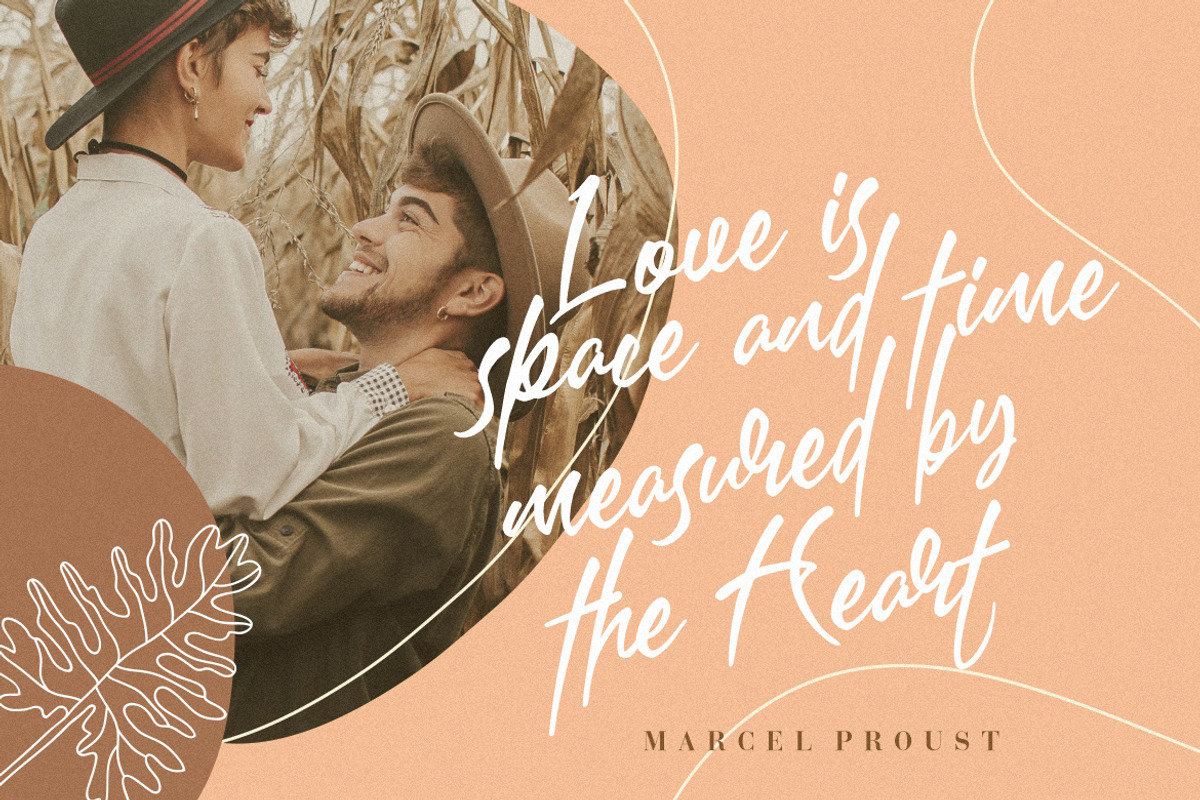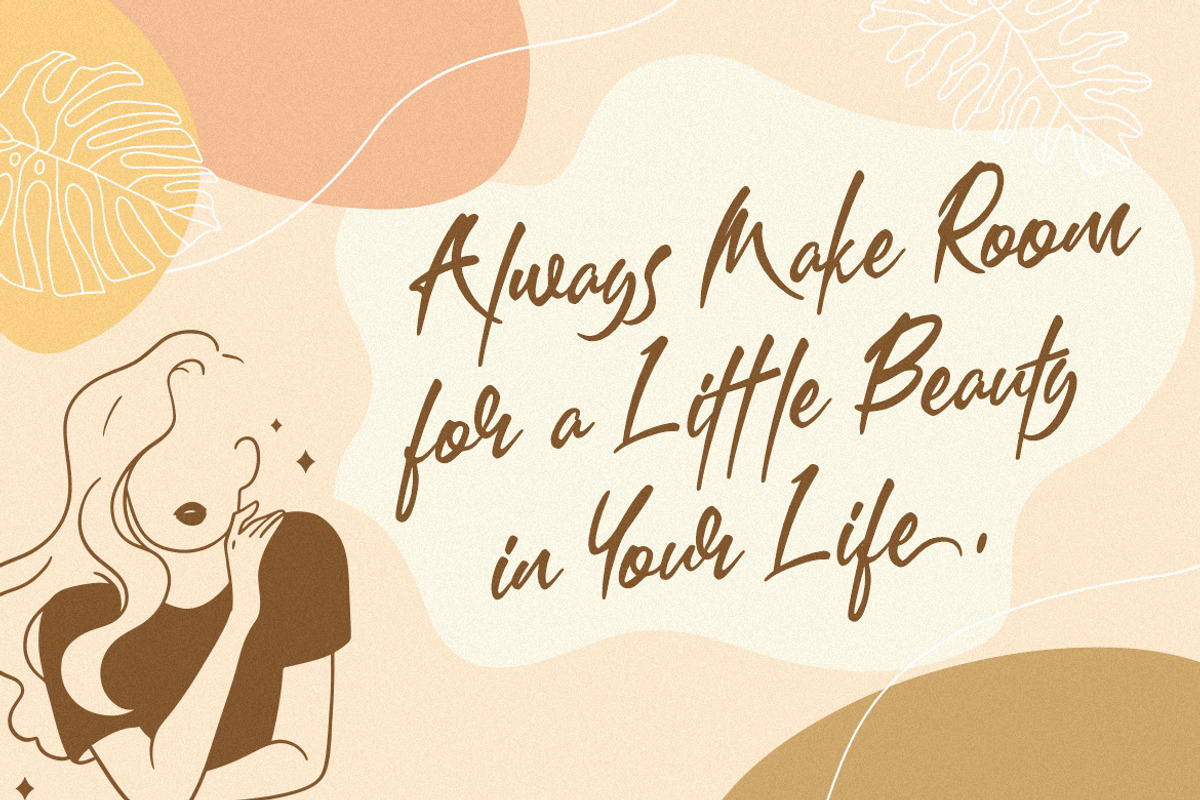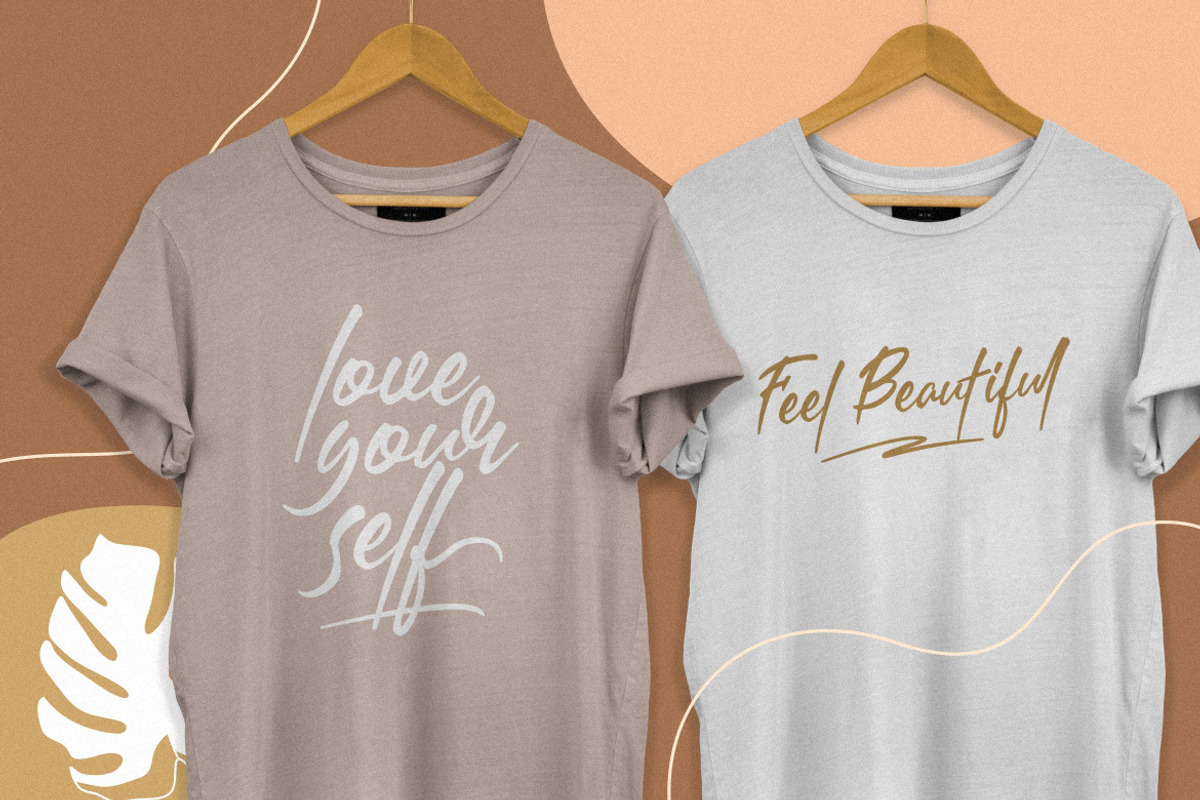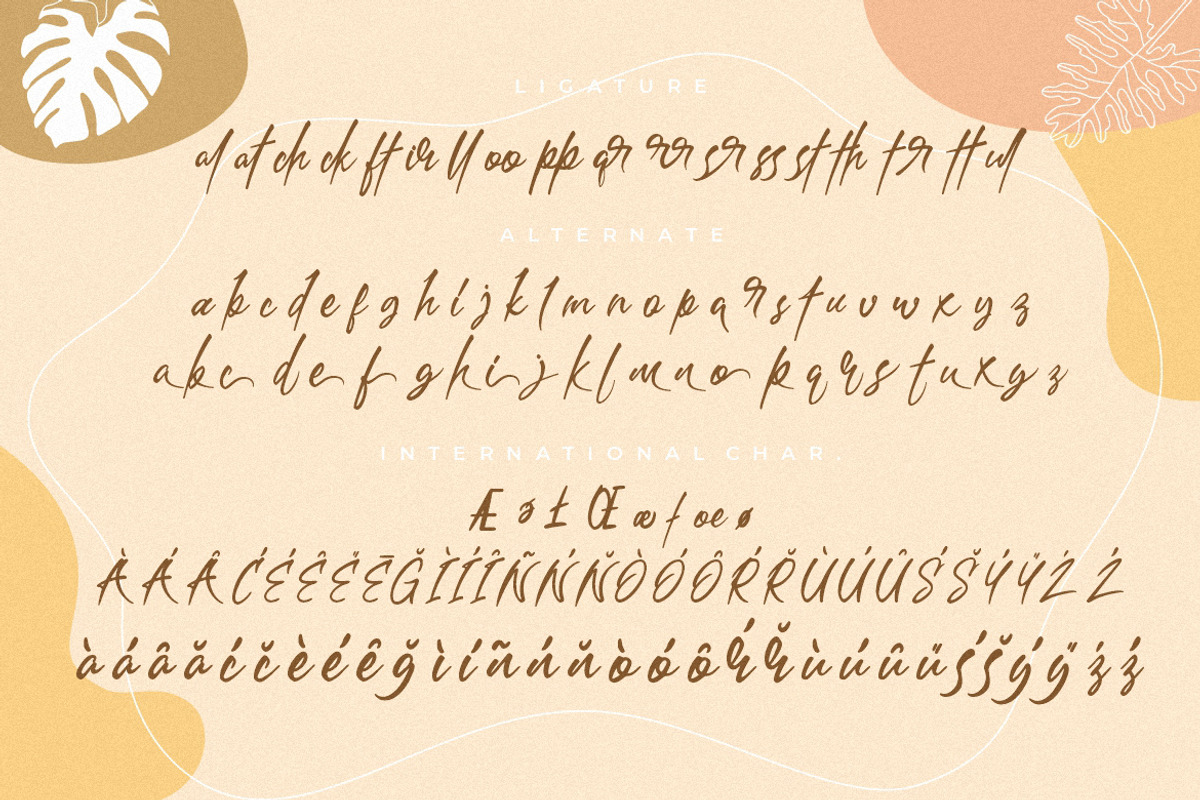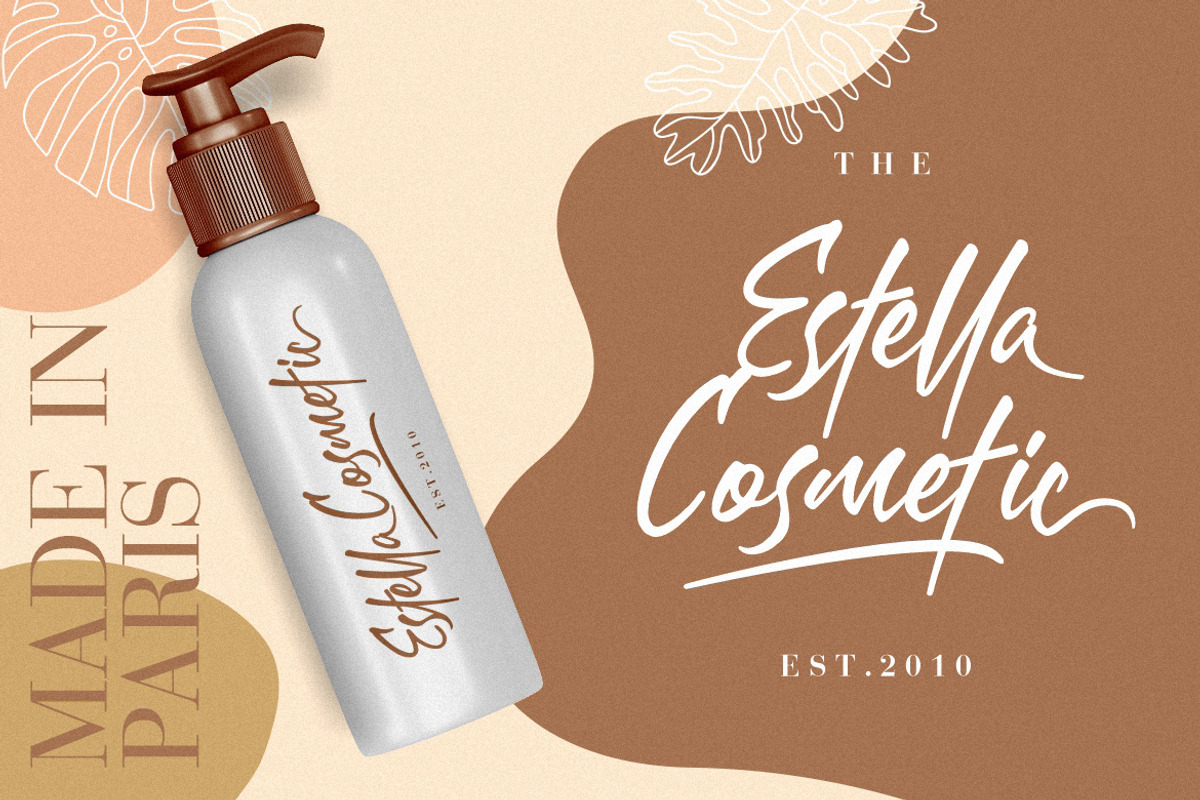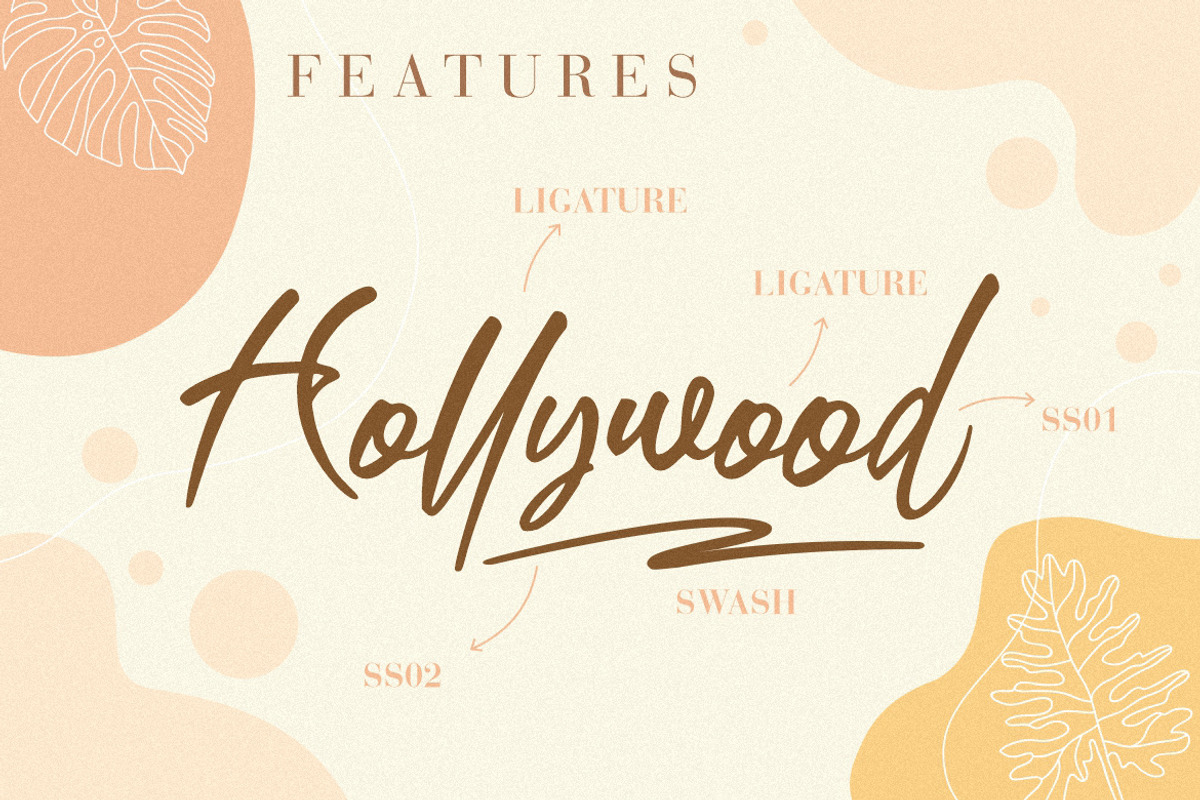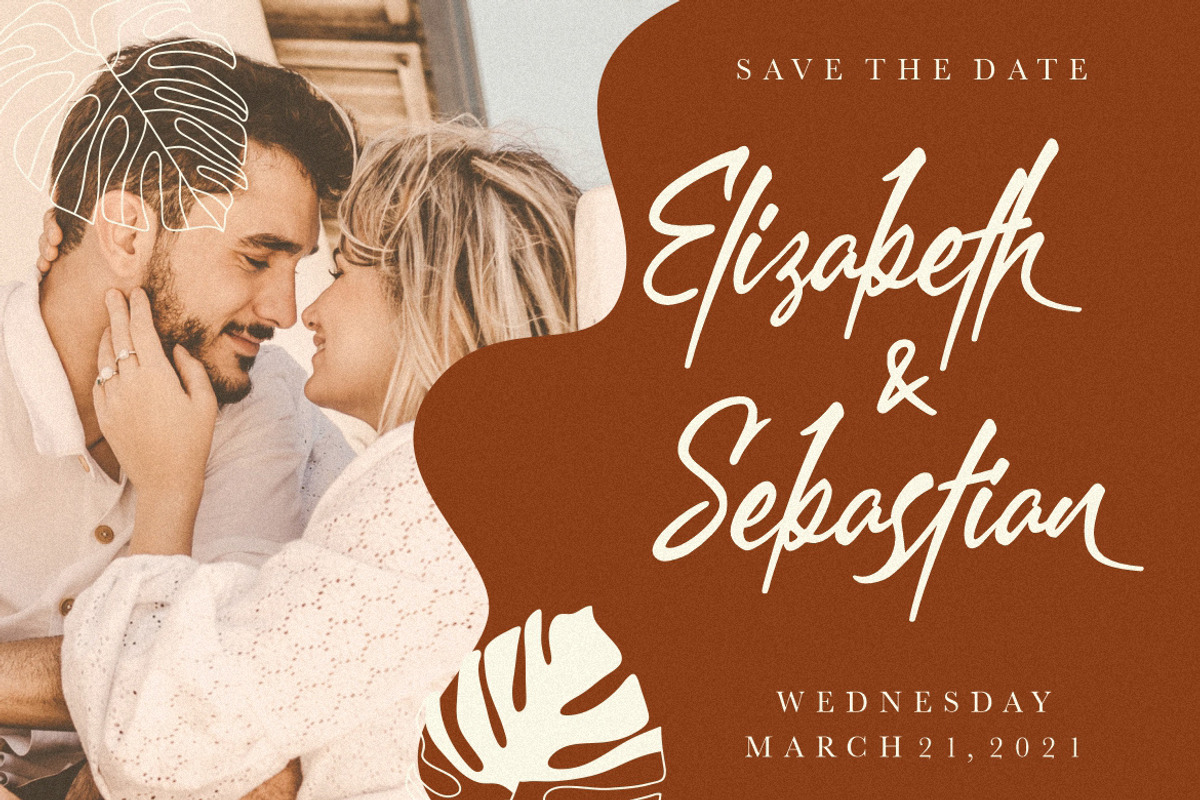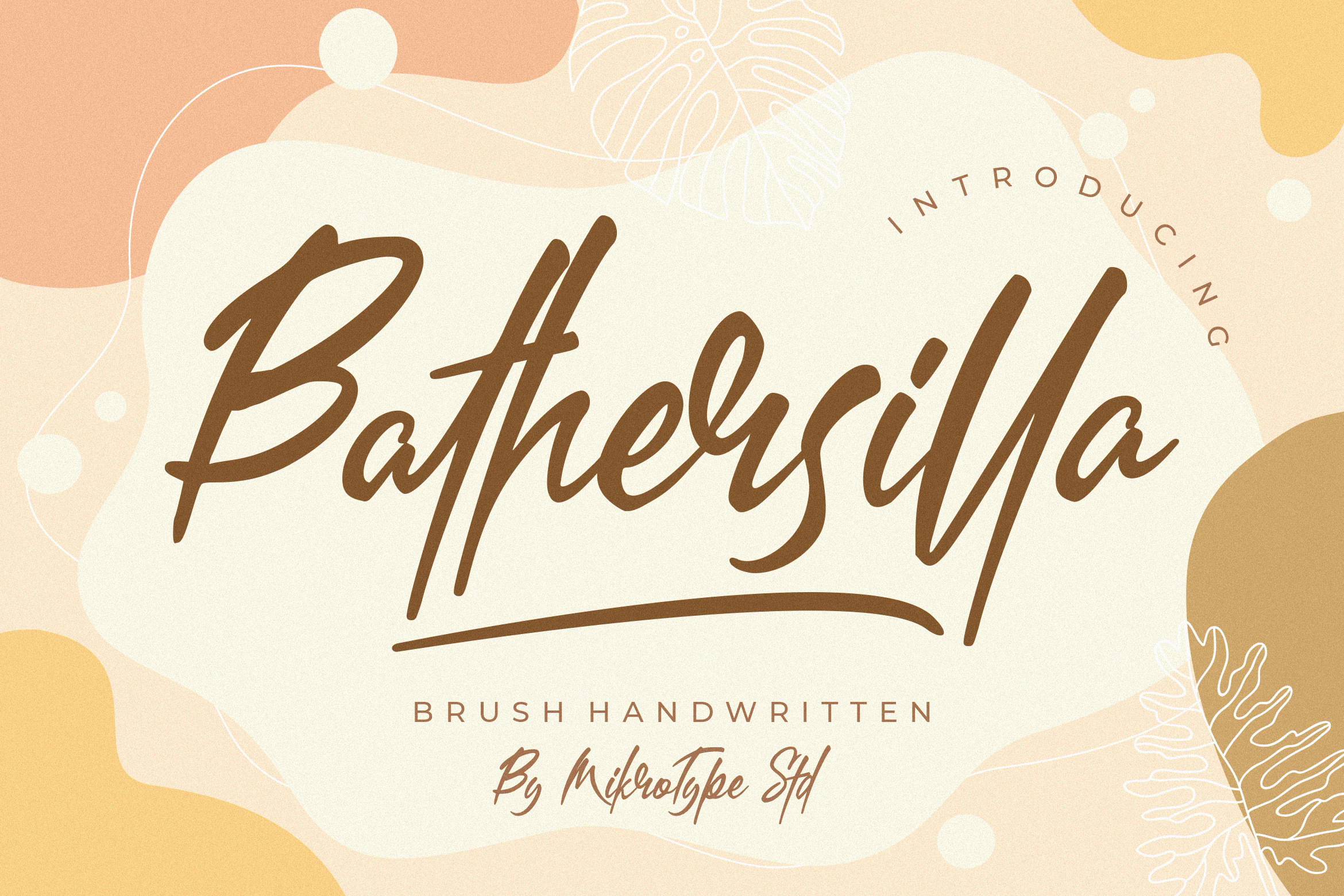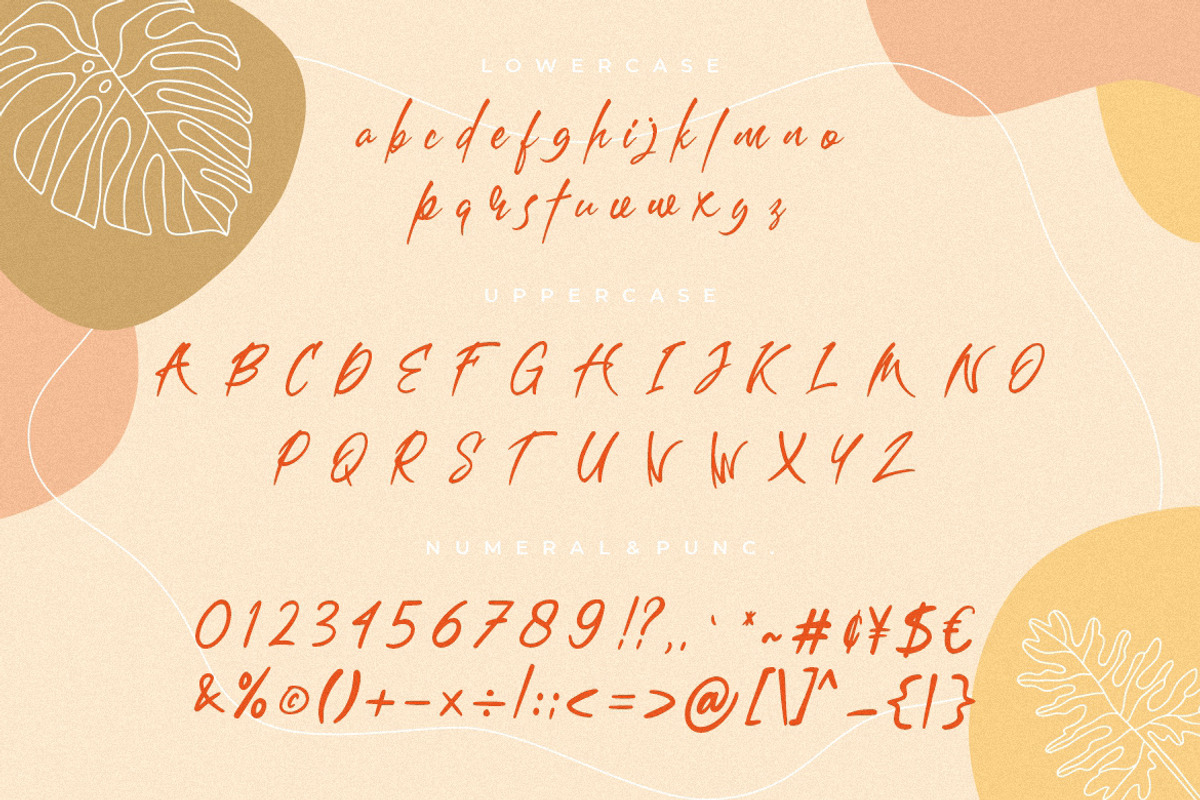
Bathersilla Brush Wedding Font
Introducing Bathersilla Brush Handwritten - A brush stylish handwriting typeface. This font will looks awesome and amazing in many way to your latest project. The font is perfect for for movie title, logo, blogging, brand identity, book title, social media, branding, wedding invites, cards or simply use it in your next design project and suitable to use for many occasion.
- Standard Characters
- Multilingual Characters support for;Afrikaans, Albanian, Czech, Danish, Dutch, English, Estonian, Finnish, French, Hungarian, Italian, Latvian, Lithuanian, Norwegian, Polish, Portugese, Slovak, Slovenian, Spanisch, Swedish, Turkish.